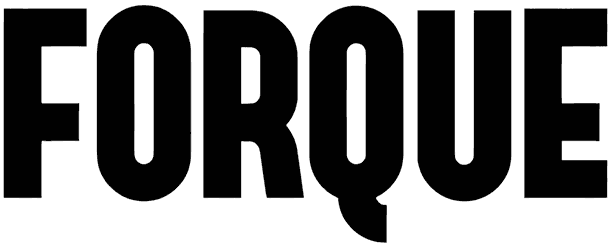
Forque Font
Some fonts like Forque are always trendy and never become old-fashioned, so you can trust them and include this sans serif font in designing creative ideas such as posters, e-books, presentations, book covers, or announcements to take them to a higher level of quality. Due to the magical style of this all-caps font, you can establish a sense of modernity, momentum, and trustworthiness.
Designed by: Tup Wanders